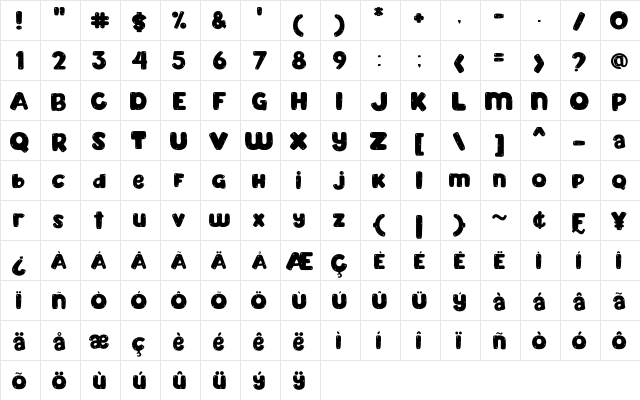
Mahoney Twinkle Regular
Design Context for Mahoney Twinkle Typeface
Mahoney Twinkle is a composed and adaptable typeface that performs quietly and consistently across a wide range of design contexts.